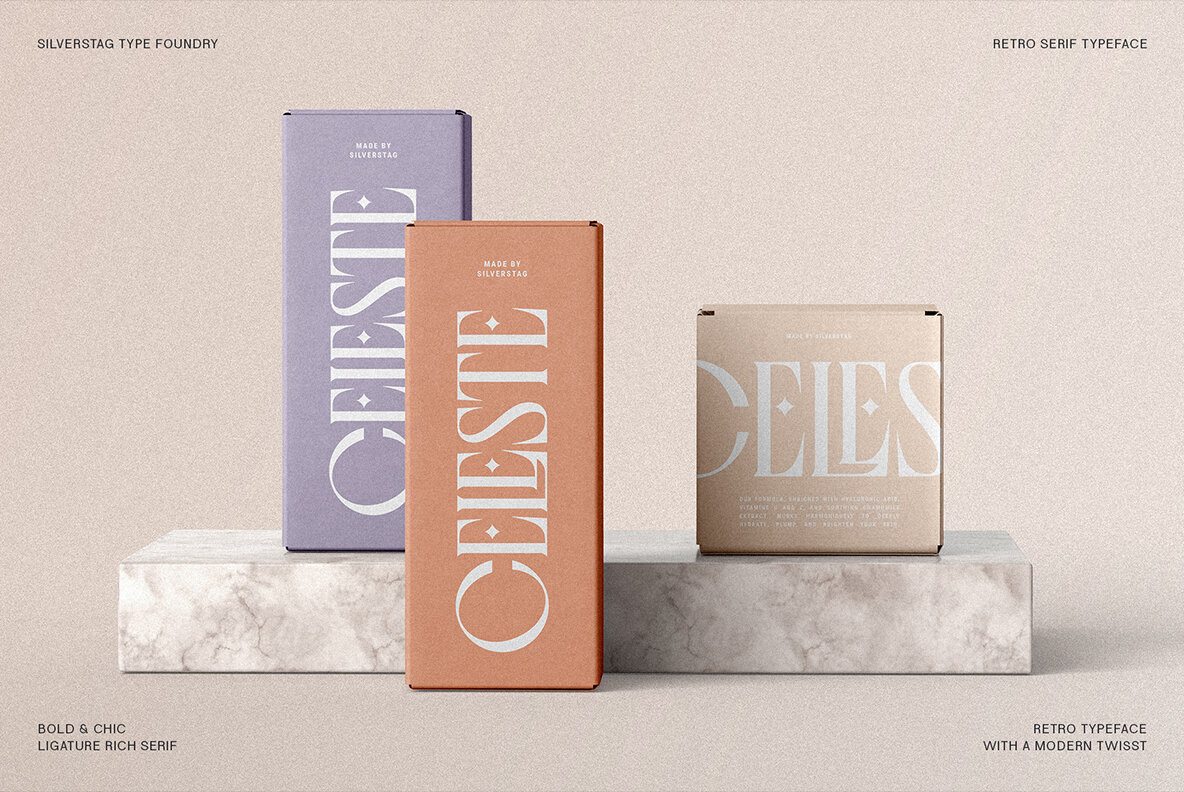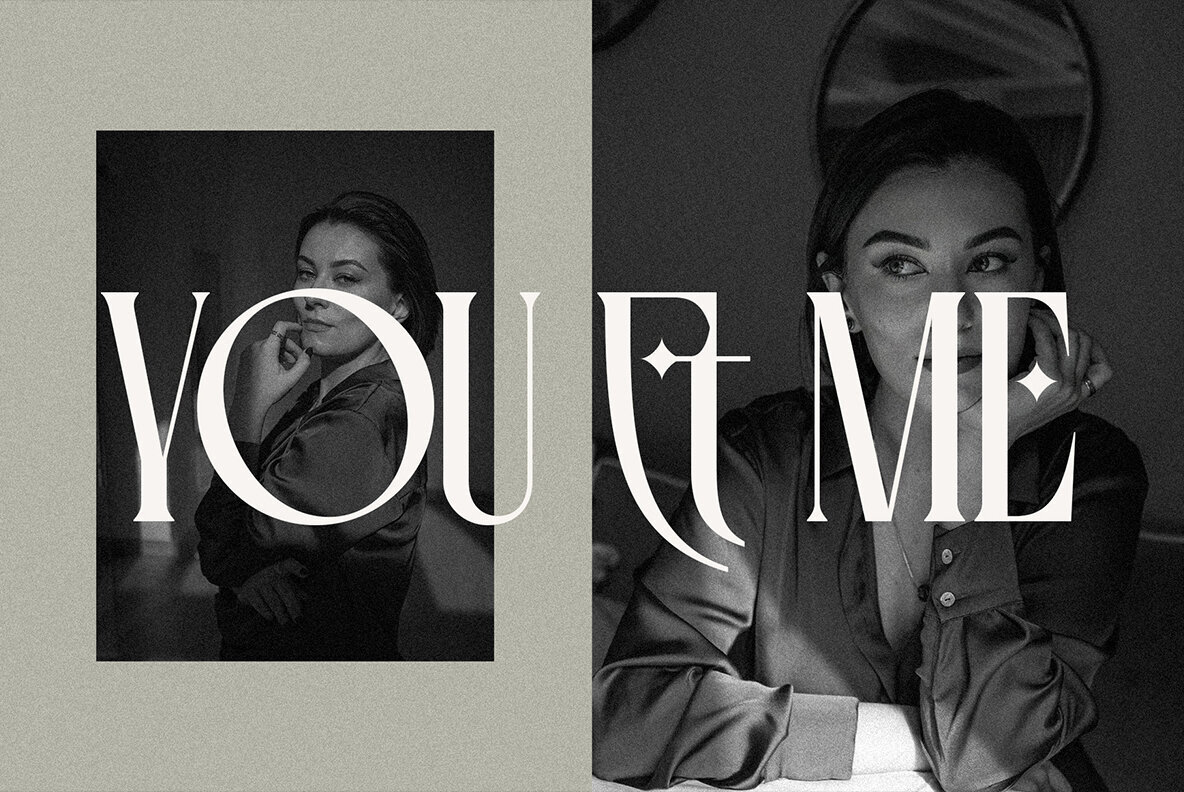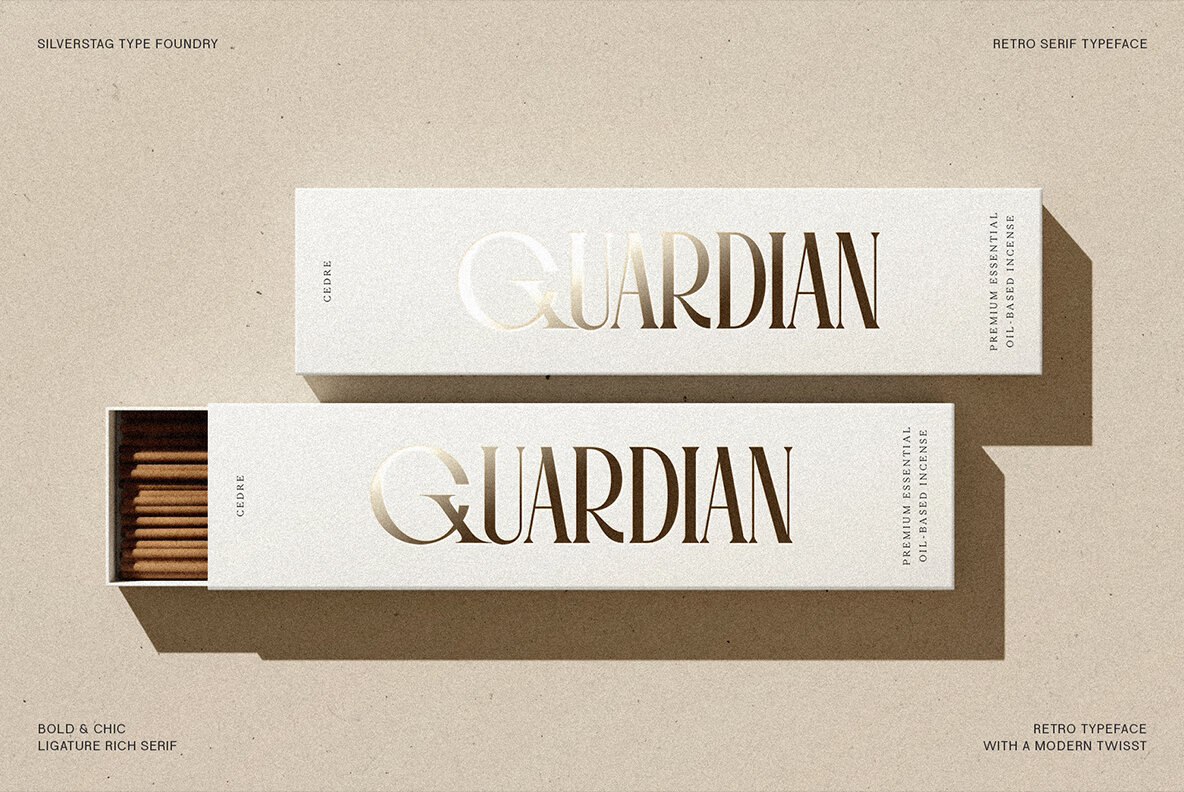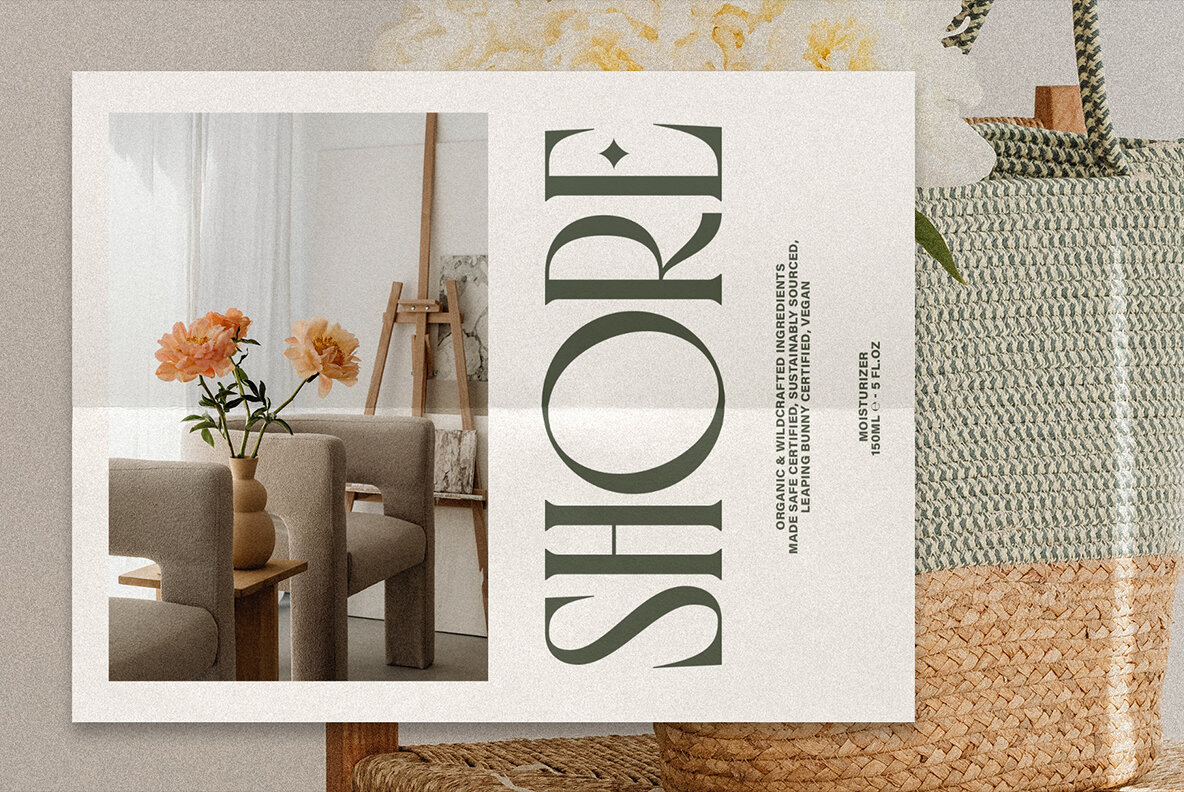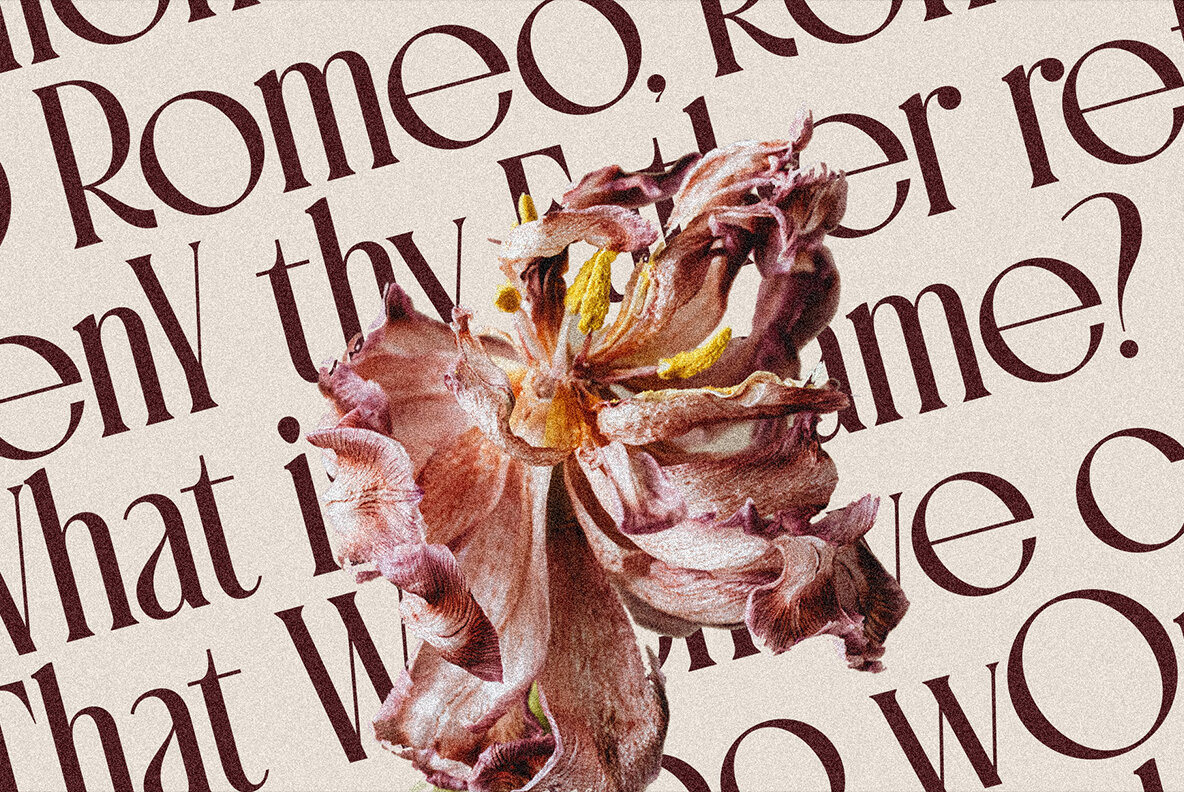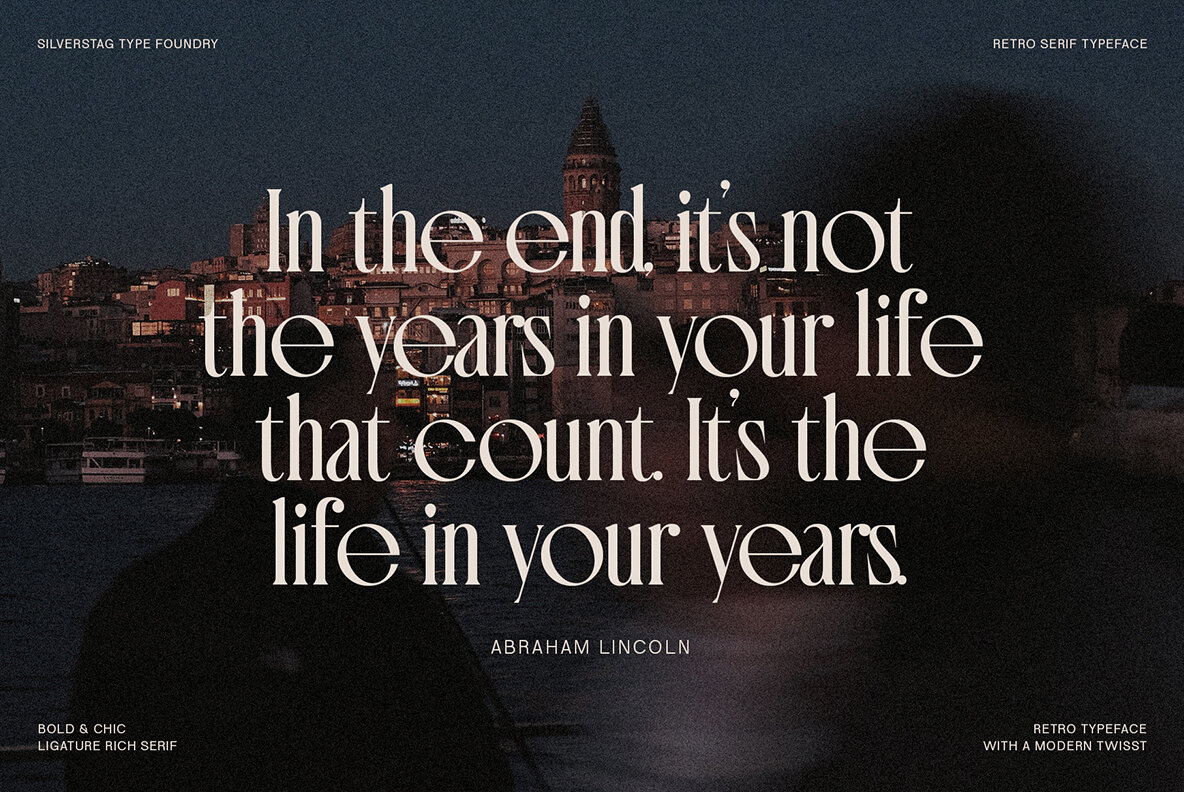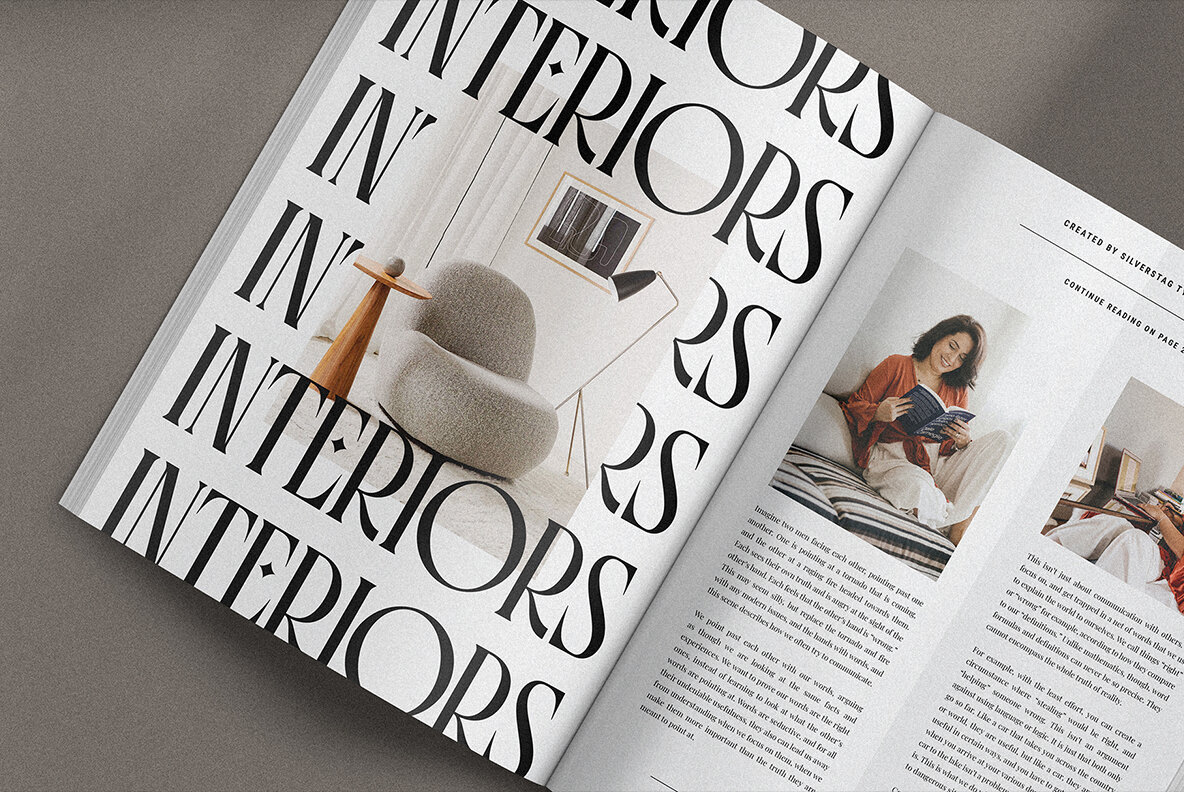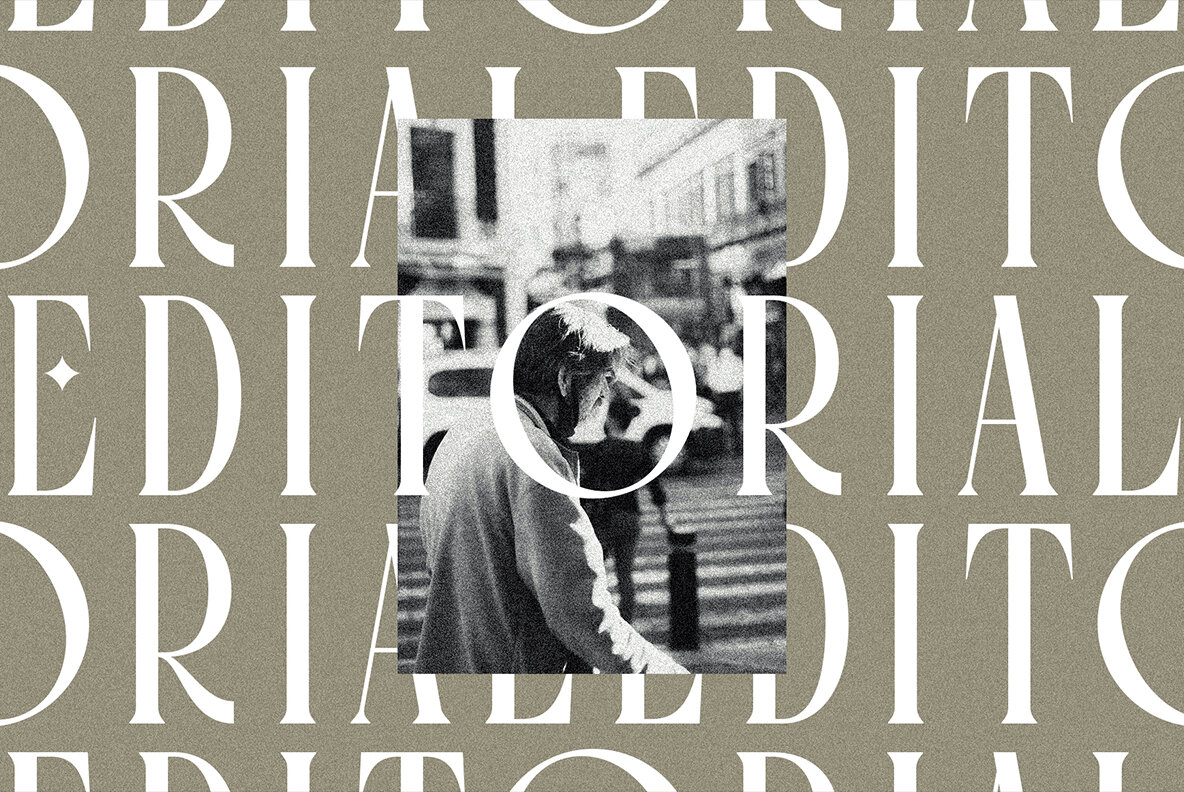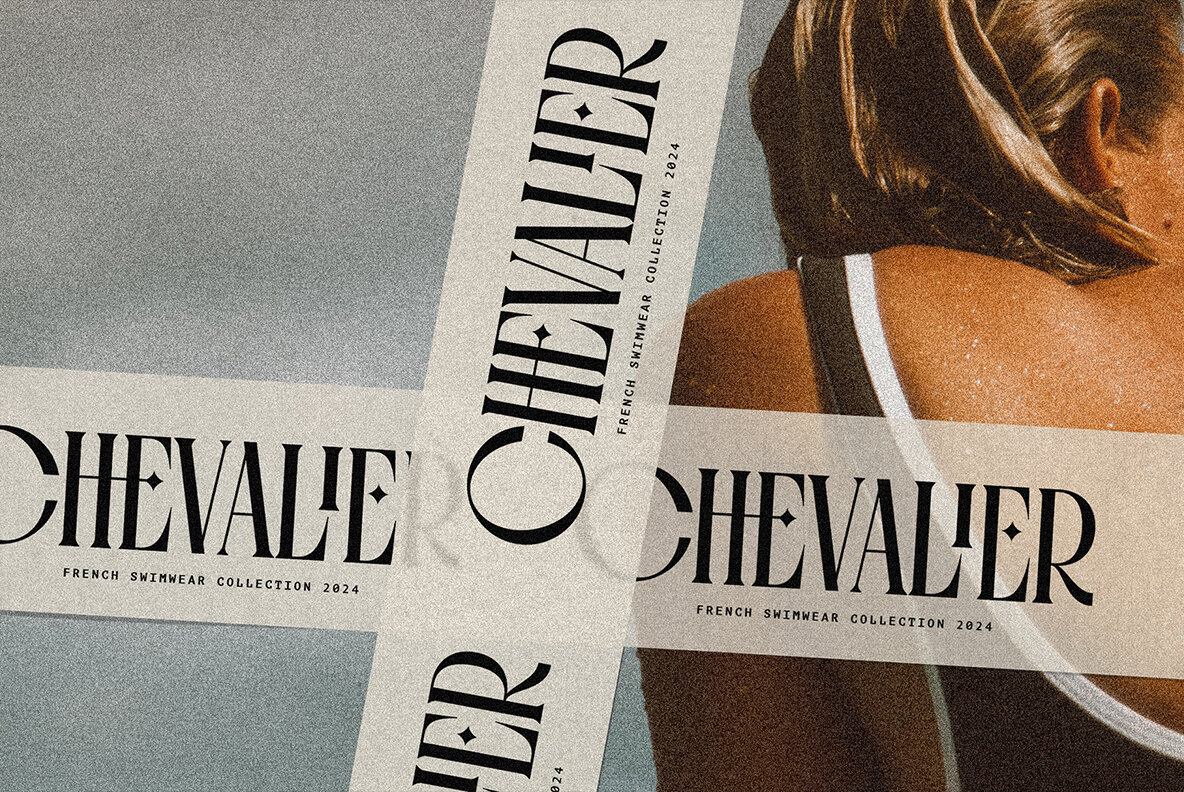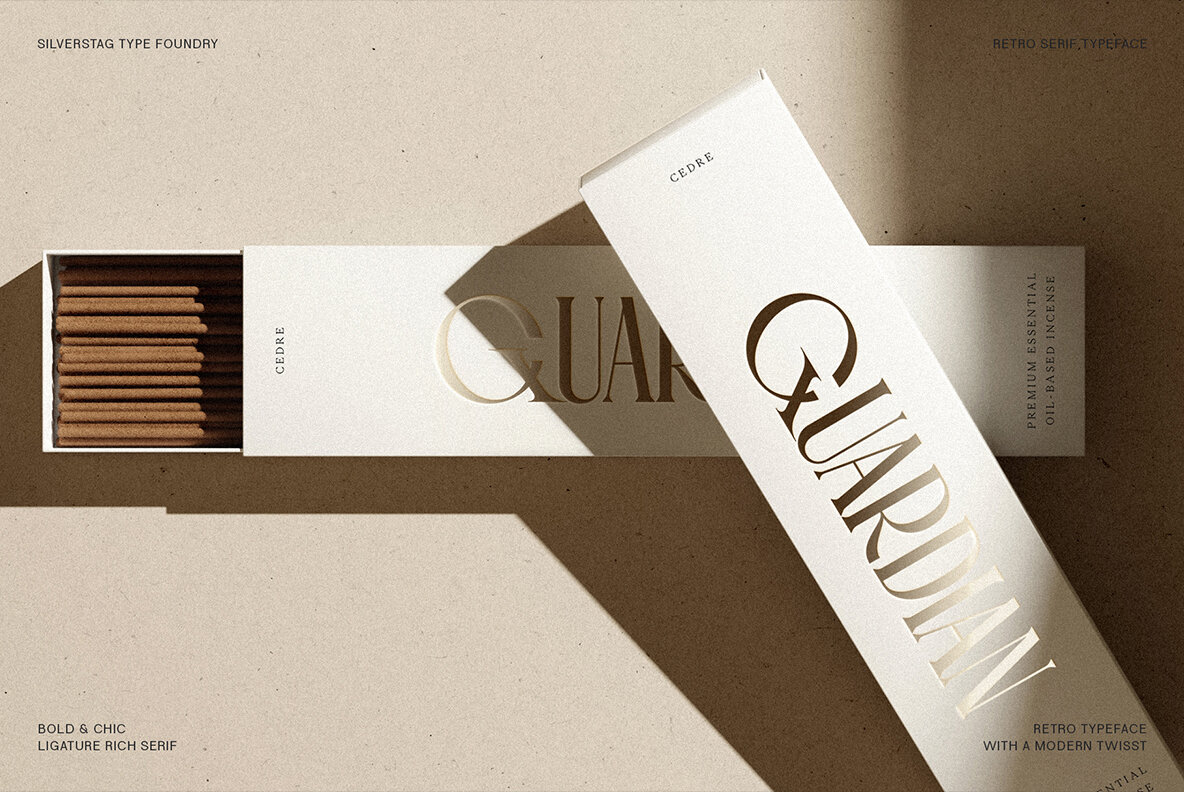
Introducing Fragilità, a captivating serif font that embodies the delicate balance of classic elegance and modern innovation. With its exquisitely crafted characters, high contrast, and subtle ligatures, Fragilità seamlessly blends the charm of yesterday with the spirit of today. Fragilità's unique design harmoniously blends elements of both retro and modern aesthetics. Its condensed letterforms evoke a touch of nostalgia, reminiscent of classic serif fonts from the past. Yet, the font's modern sensibilities shine through in its circular O, Q, and C characters, which retain their full circularity, adding a touch of contemporary sophistication. Fragilità's high contrast between the thick and thin strokes of its characters ensures exceptional readability across various mediums. Whether gracing the pages of a book, adorning a website, or captivating viewers on a digital screen, Fragilità remains effortlessly legible. Fragilità's extensive library of ligatures adds a touch of refinement and sophistication to your text. These intricate pairings of letters flow seamlessly together, creating a sense of continuity and elegance that elevates your written expression. Fragilità's comprehensive support for over 92 languages makes it an invaluable tool for anyone seeking a versatile font that can transcend cultural boundaries. With its adaptability to a wide range of languages, Fragilità ensures that your message resonates with audiences worldwide. We understand that quality fonts shouldn't be a luxury reserved for a select few. That's why Fragilità is available for an incredibly affordable price of just $24, making it accessible to designers and creative professionals of all levels. With its exquisite design, exceptional readability, and ligature-rich character, Fragilità is a font that will elevate your creative projects to new heights. Whether you're crafting elegant body text, designing eye-catching headlines, or creating captivating marketing materials, Fragilità will add a touch of timeless elegance and modern sophistication to your work. Embrace the delicate balance of classic charm and modern innovation with Fragilità, your new go-to serif font for all your creative endeavors.